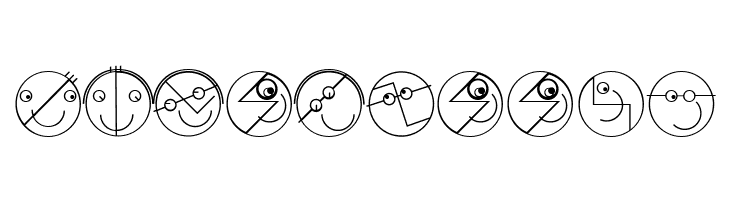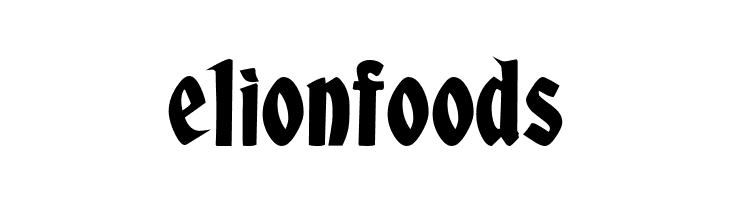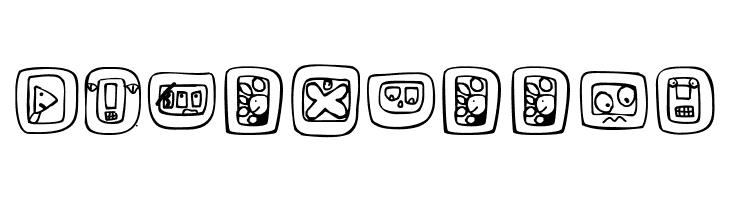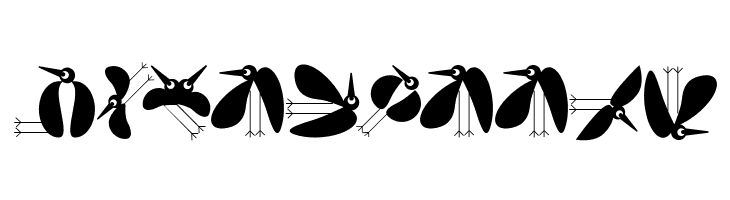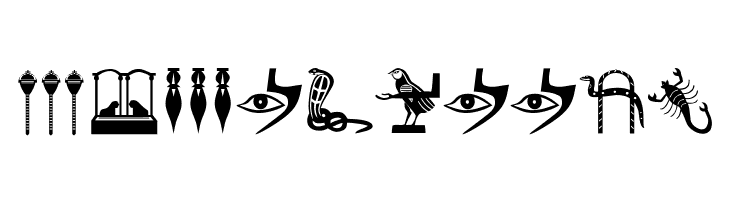
A playful and creative font with each character designed as a unique face within a circle.
A collection of cave painting-style pictographs with expressive, bold lines.
A collection of silhouette illustrations depicting dynamic scenes and characters.
A bold, blackletter-style font with sharp angles and dramatic curves.
A bold, decorative font with abstract symbols in rounded squares, inspired by ancient carvings.
Illustrative, story-driven font with biblical and ancient motifs.
A decorative font made of stylized bird illustrations for each character.
Pictorial font inspired by Egyptian hieroglyphs.
A bold, angular Blackletter font with historical elegance.
Whimsical pictorial dingbats with storybook and fantasy themes.